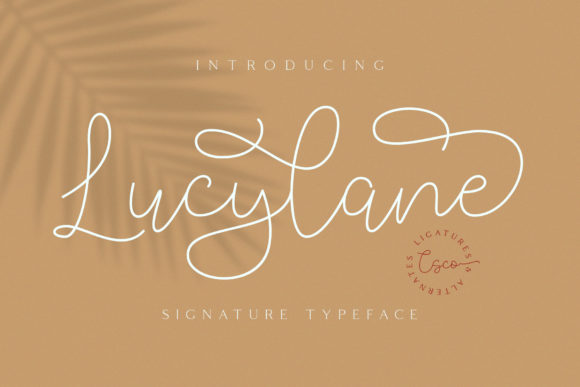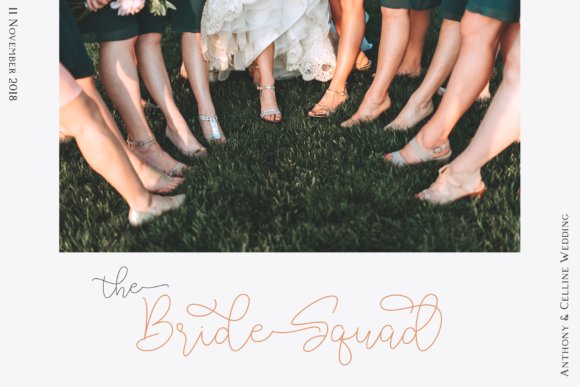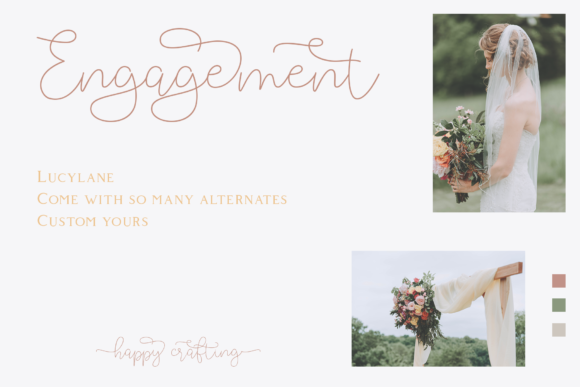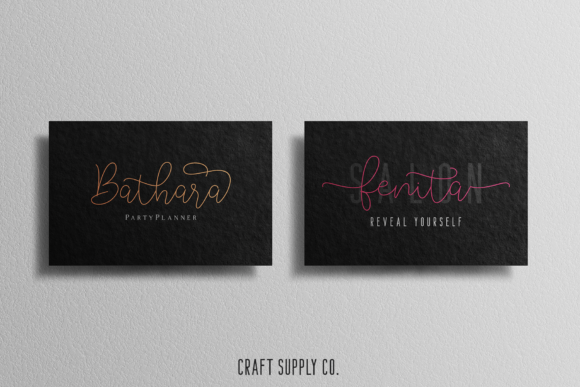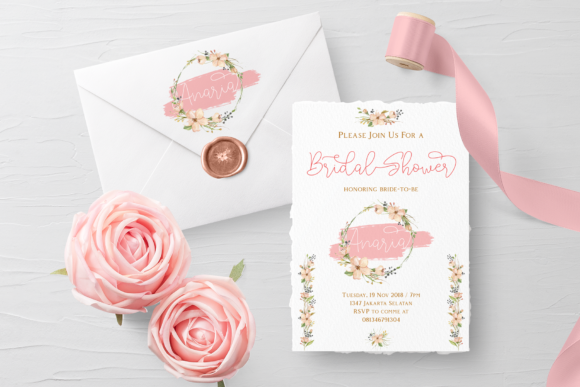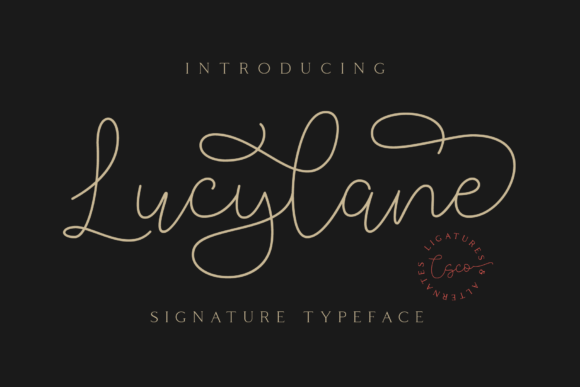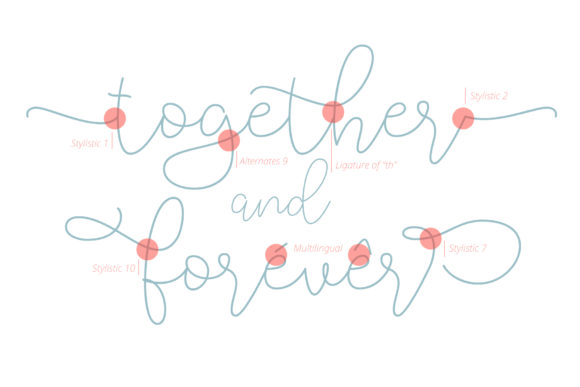
Lucylane Font
About Lucylane Font
The Lucylane is a free flowing monoline script. This handwritten signature exploits the common letter-to-letter transitions of the typical cursive hand by utilizing two style points controlled within the machinations of OpenType Contextual Alternates. It can be used to create almost all types of design projects. Just use your imagination and your project will become more alive and look great than ever!